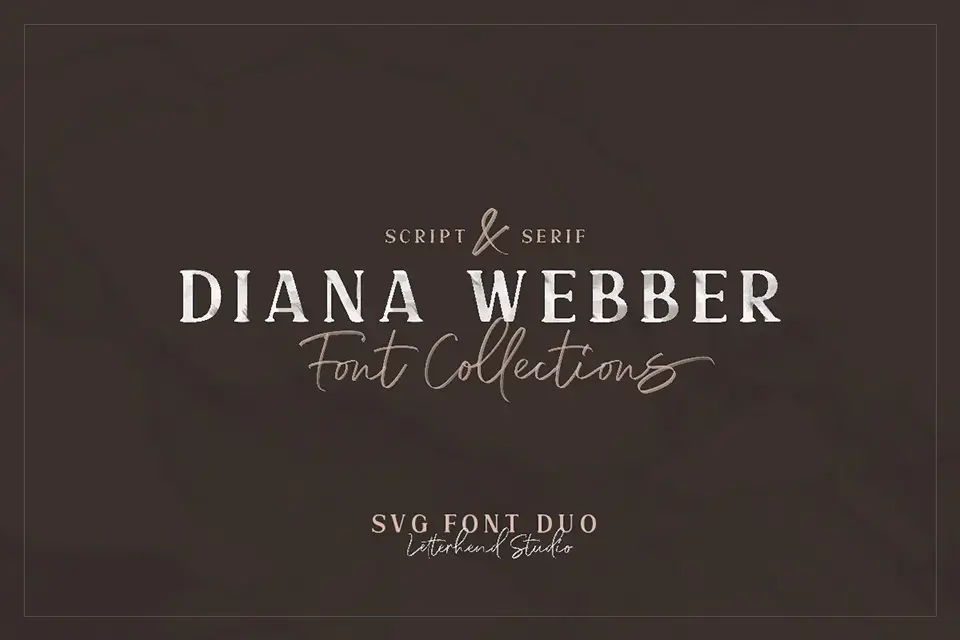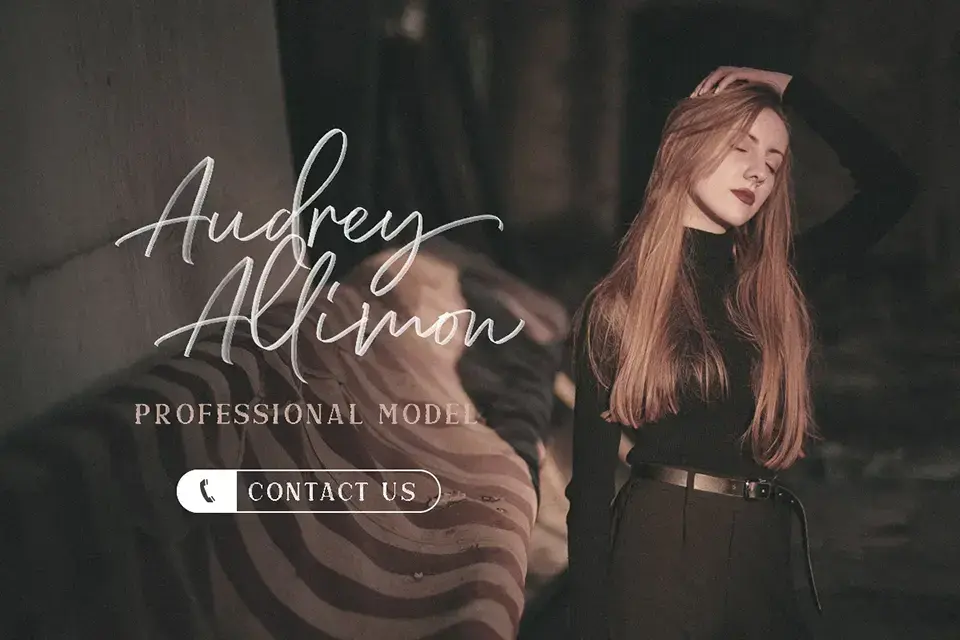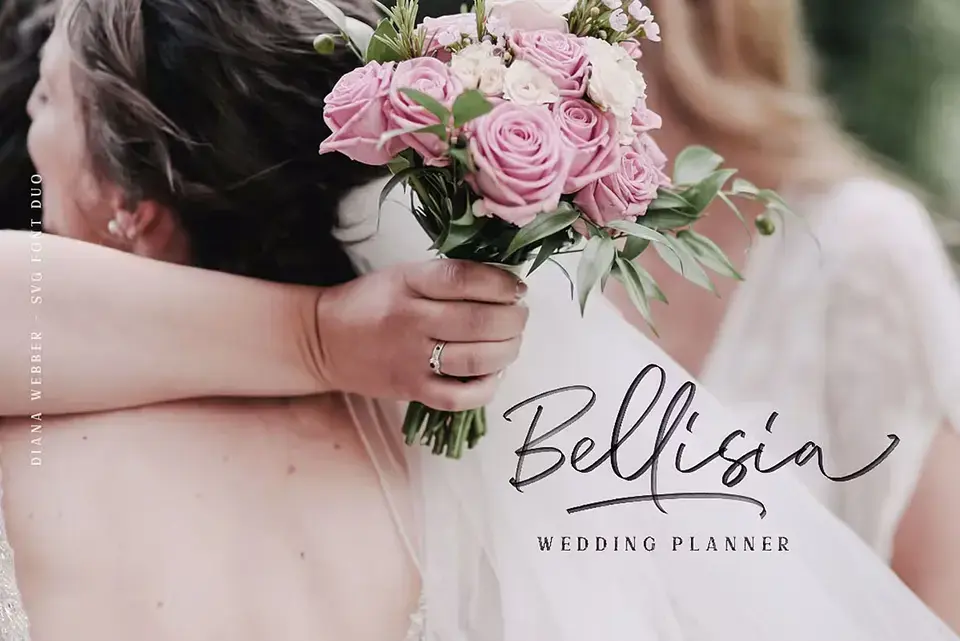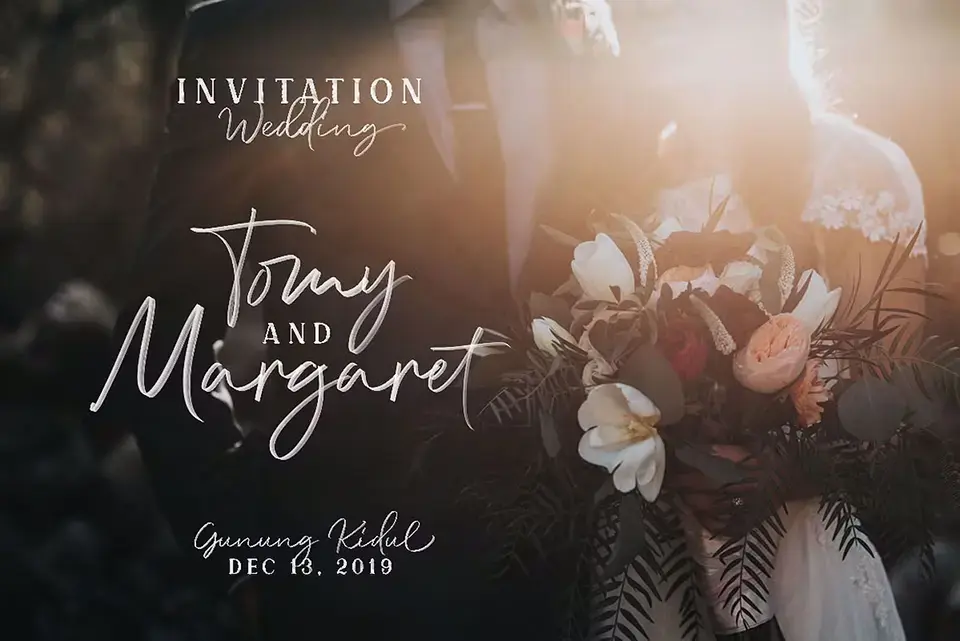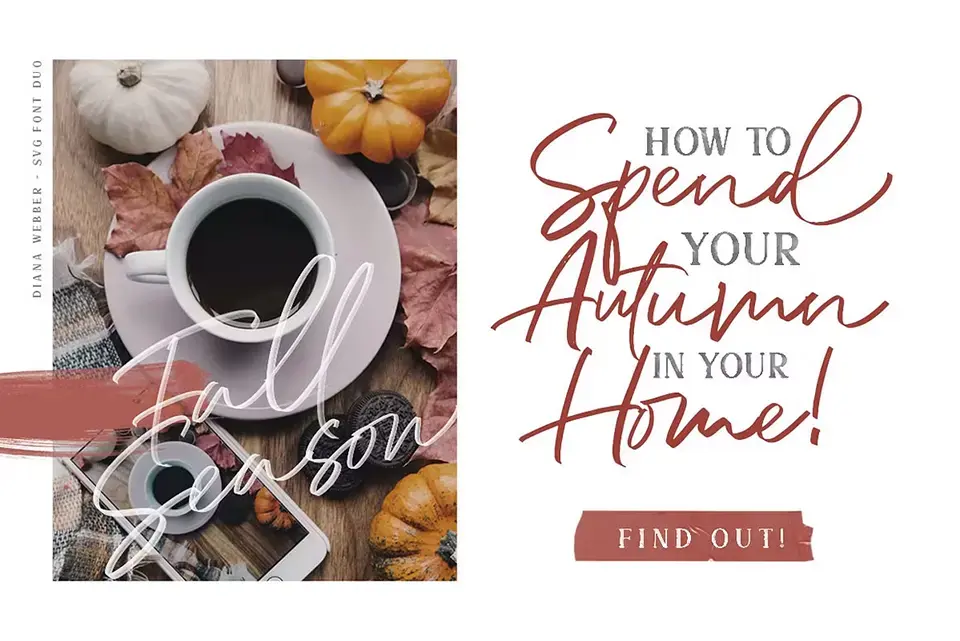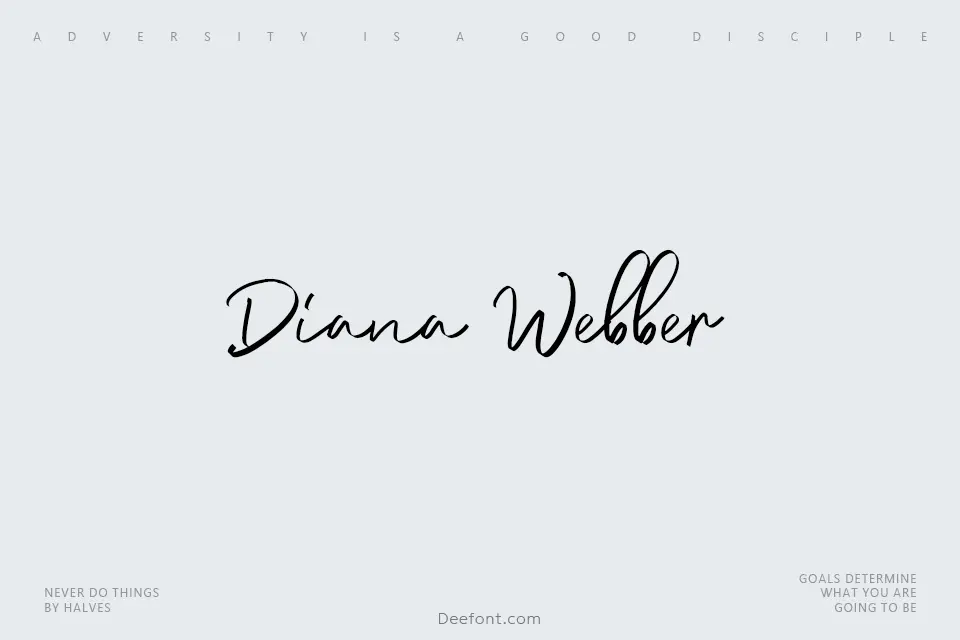
Diana Webber Font
Diana Webber Font is a stunning display typeface family featuring an SVG script and SVG serif duo. With fluid curves, graceful strokes, and natural handwriting texture, this font exudes elegance and romance. Perfect for wedding invitations, logos, headlines, branding, packaging, and sophisticated design projects.